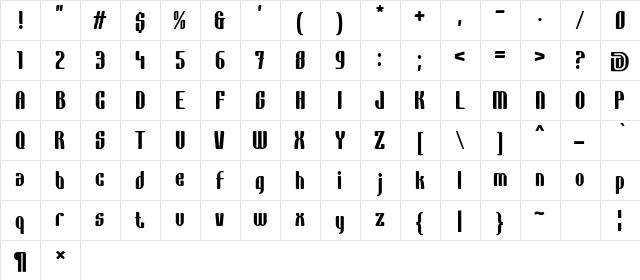
Grage Black Regular
| Designer | Emanes Dsign |
Design Context for Grage Black Typeface
Grage Black is a composed and adaptable typeface that performs quietly and consistently across a wide range of design contexts.